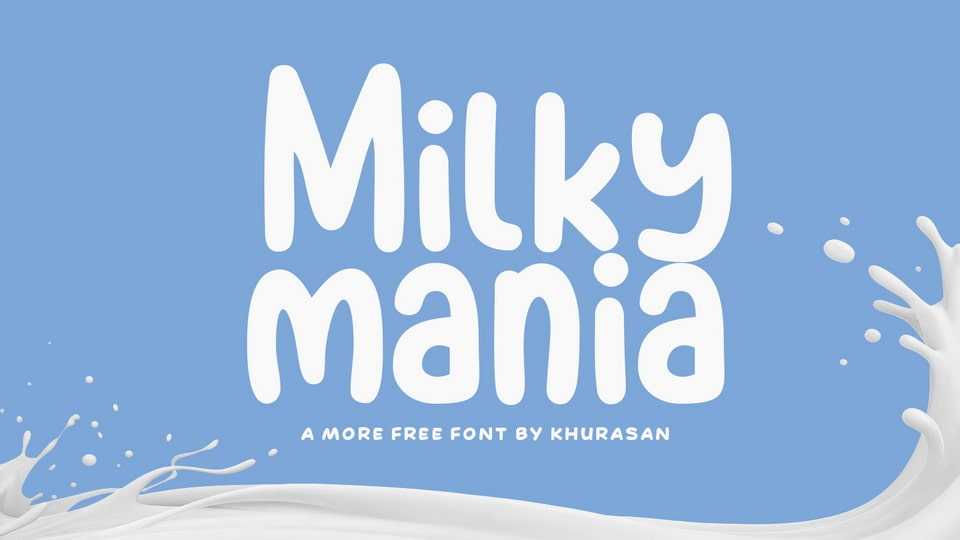
Download Milky Mania font, a smooth, natural handwritten font, perfect for adding a casual, creative flair to comics, notes, and creative ideas. With simple and organic lines, Milky Mania font will bring your creative ideas to life with its naturally beautiful look.